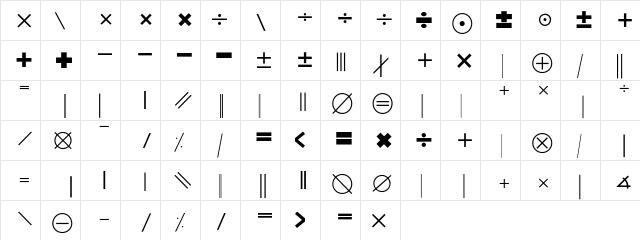
MathTechnical P04 Font Preview
MathTechnical P04
MathTechnical P04 Font Details
Design Context for MathTechnical Typeface
MathTechnical channels digital-age aesthetics through its sharp, structured letterforms — ideal for brands that want to signal innovation.